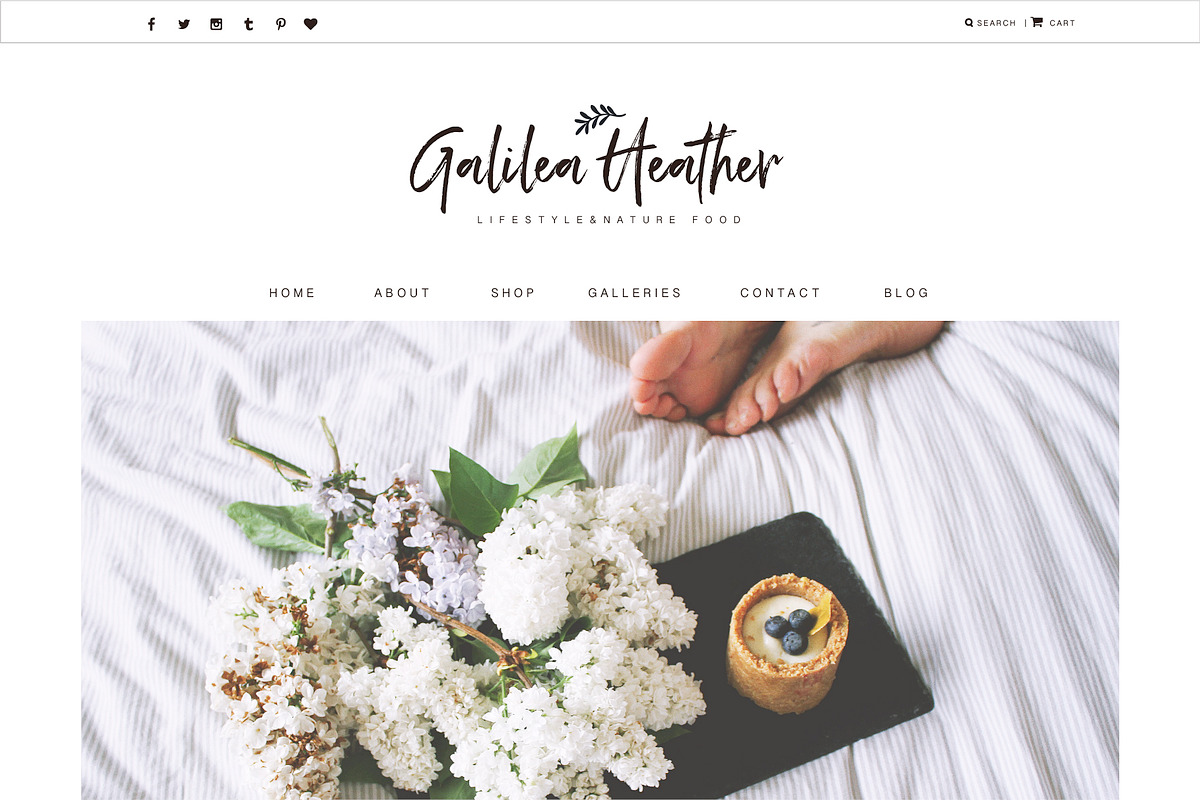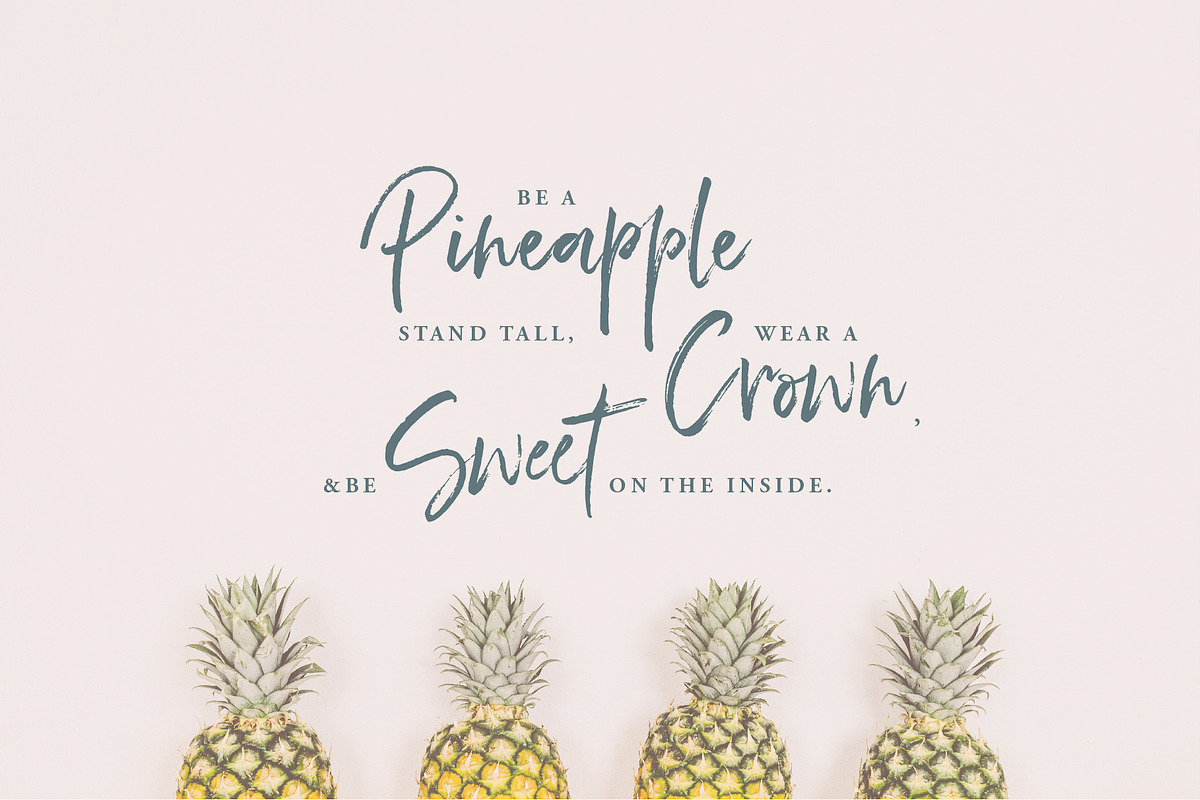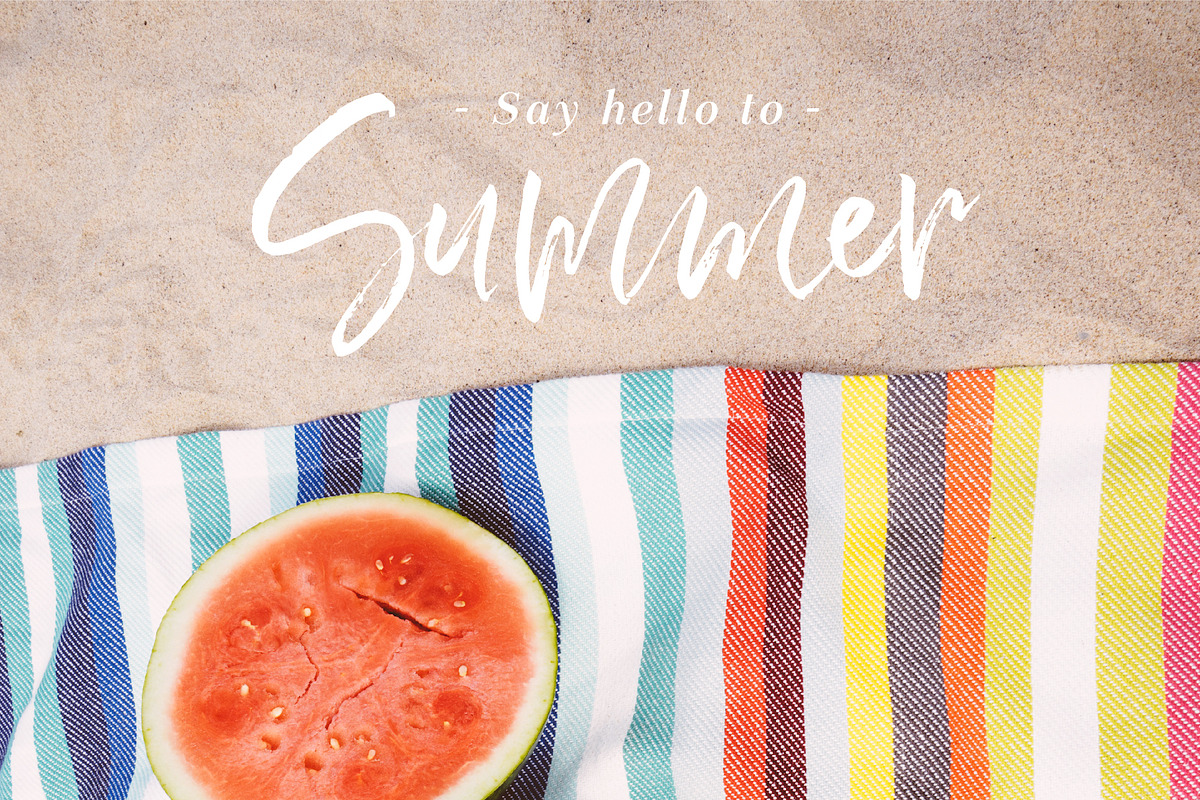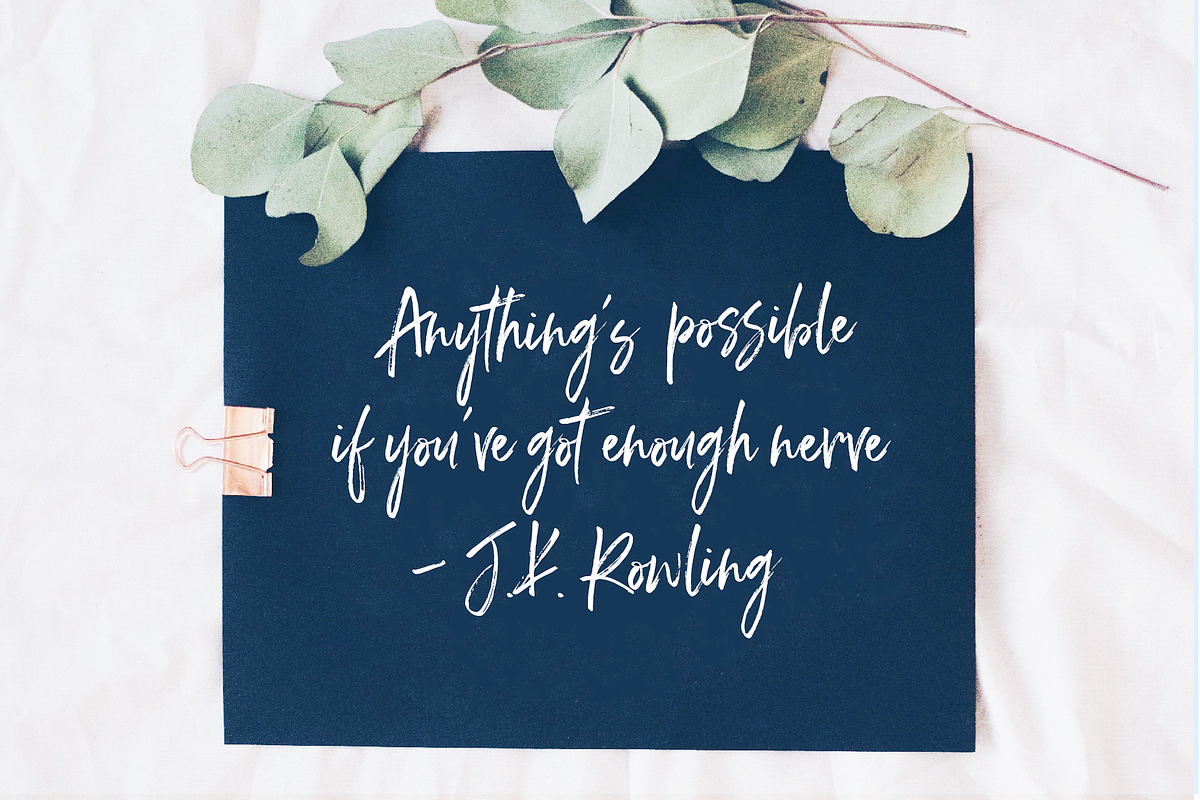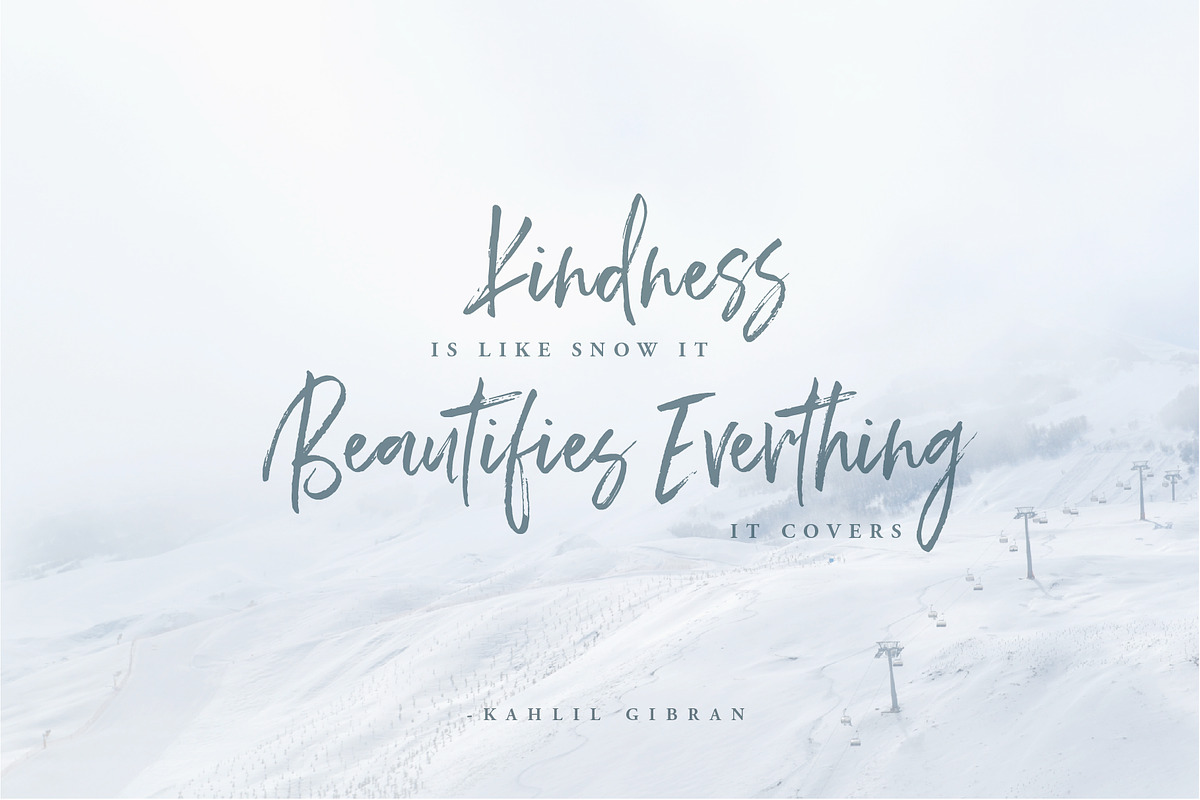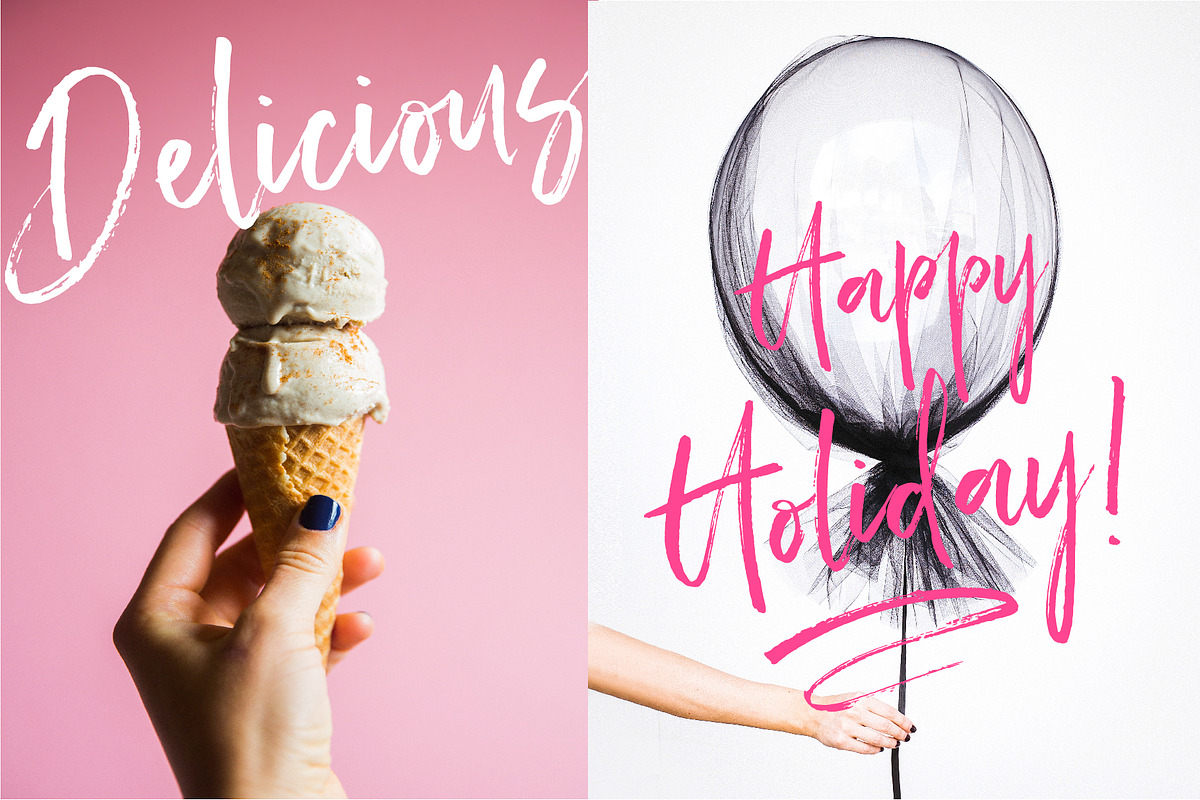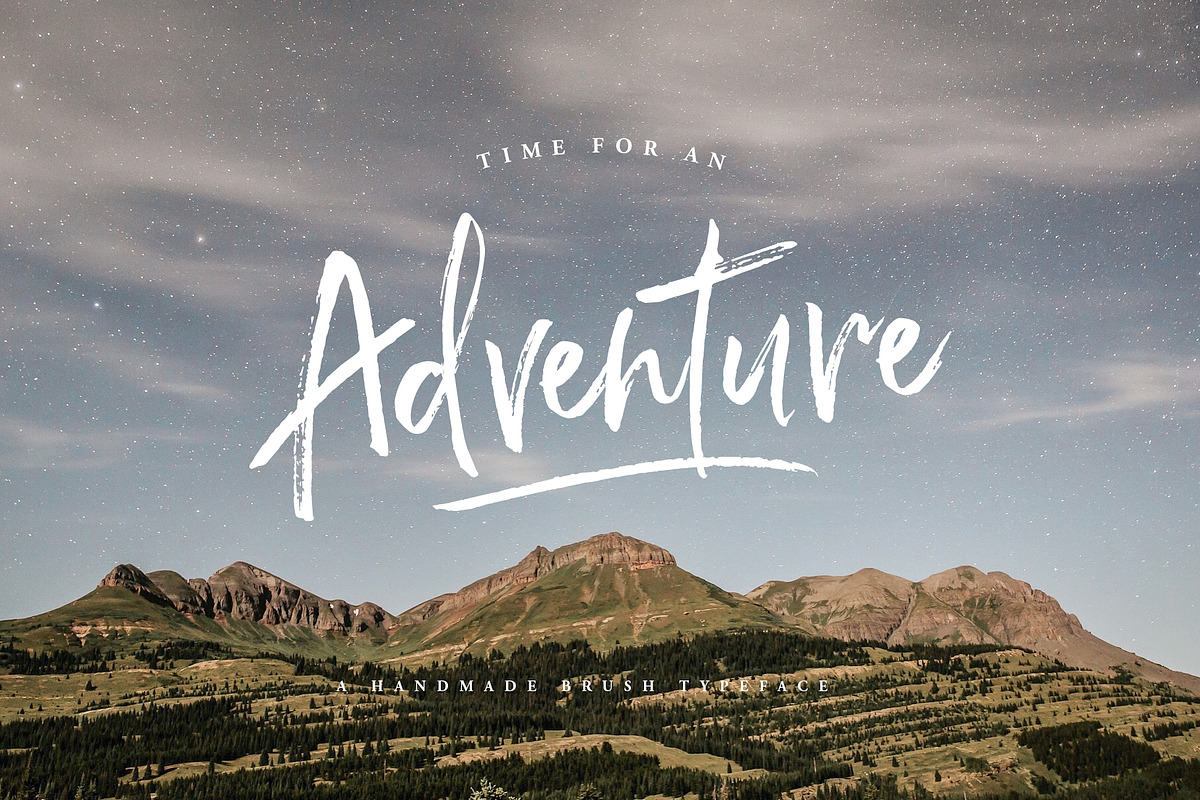
Heartsoul Font
Heartsoul Font by Graphic Box is a font selected for branding, posters, packaging, typography.
Why Heartsoul Font is worth a look
Heartsoul Font by Graphic Box fits naturally into Branding, posters, packaging, typography.